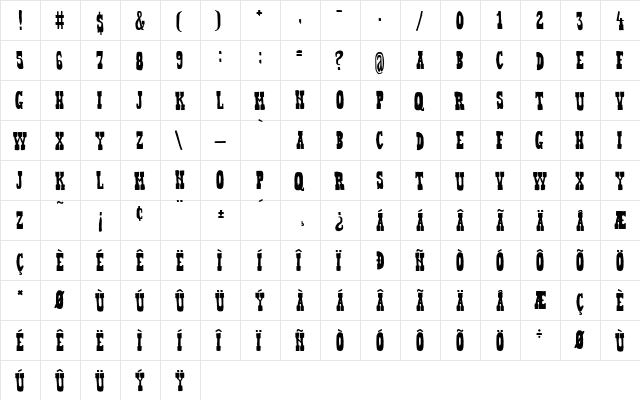
Heffer Condensed
Design Context for Heffer Typeface
Heffer is a composed and adaptable typeface that performs quietly and consistently across a wide range of design contexts. The condensed width makes it efficient for tight spaces without sacrificing legibility.